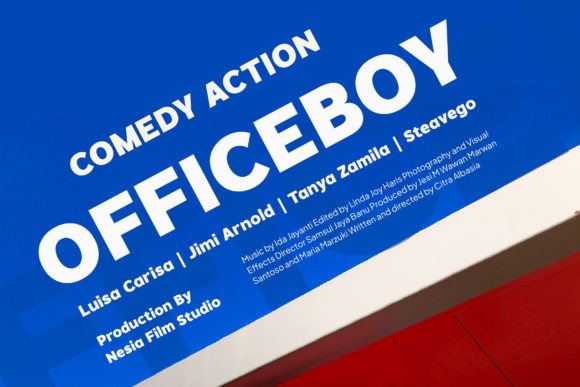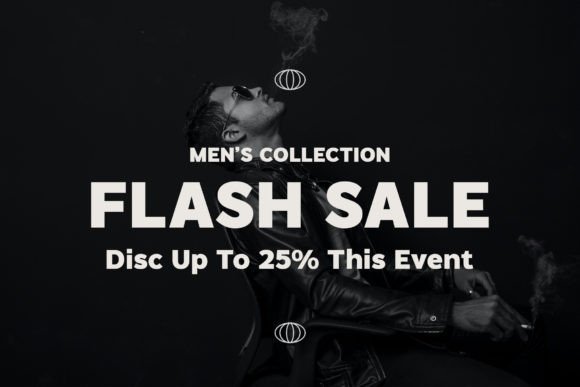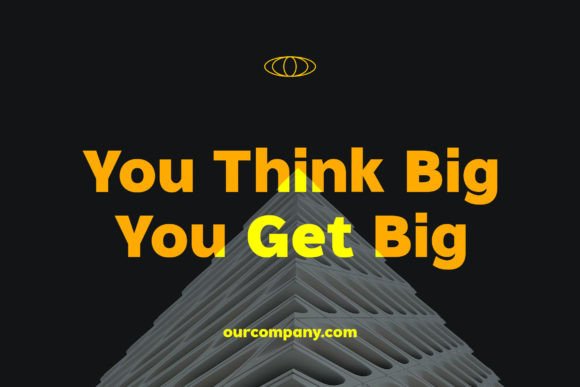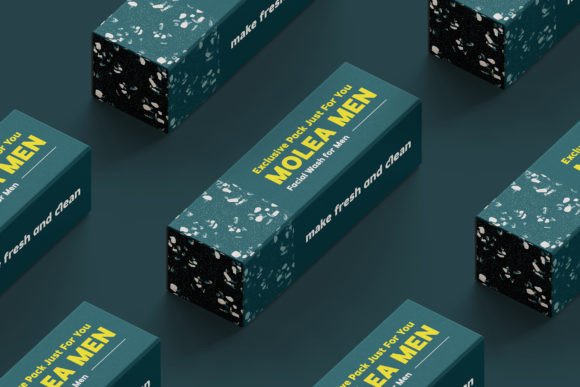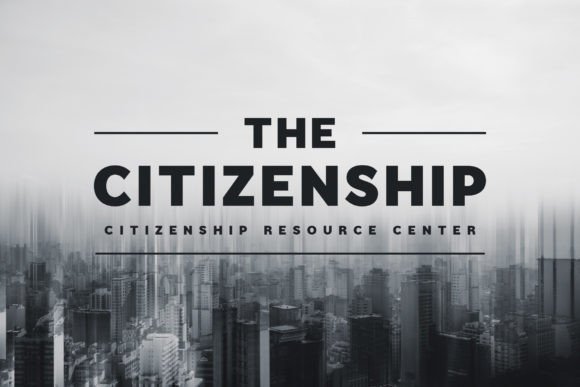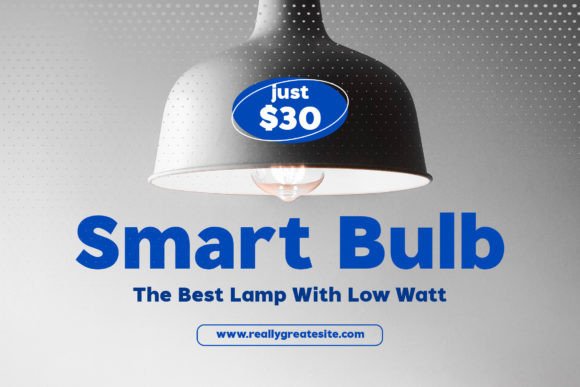
Introducing Carientz Font: The Modern Bold Sans Serif for Creative Projects
In the world of design, typography plays a crucial role in conveying messages, expressing creativity, and building brand identities. For designers and crafters looking for a modern and bold sans serif font, Carientz is an excellent choice. This versatile font is perfect for a wide range of projects, from logo branding and editorial design to sport design, game industry, and digital apps startup design.
What is Carientz Font?
Carientz is a modern bold sans serif font designed to make a statement. Its clean and geometric lines, combined with its bold weight, make it perfect for headlines, titles, and logos. The font’s simplicity and elegance ensure that it can be used in various design contexts, from print to digital media.
Key Features of Carientz Font
- Modern and Bold Design: Carientz boasts a sleek and contemporary design that is sure to grab attention.
- Sans Serif: The font’s sans serif design ensures that it remains clean and uncluttered, making it perfect for digital media.
- Geometric Lines: The font’s geometric lines add a touch of sophistication and elegance.
- Versatile: Carientz can be used in a wide range of projects, from logo branding to editorial design.
Use Cases for Carientz Font
Carientz is an incredibly versatile font that can be used in various design projects, including:
- Logo Branding: Create a lasting impression with Carientz’s bold and modern design.
- Editorial Design: Use Carientz to create eye-catching headlines and titles for magazines, newspapers, and books.
- Stationery Design: Add a touch of elegance to your stationery with Carientz.
- Sport Design: Carientz’s bold design makes it perfect for sport-related projects, such as jerseys, posters, and flyers.
- Game Industry: Use Carientz to create bold and modern titles, logos, and UI elements for games.
- Techno/Gadget Brand: Carientz is an excellent choice for techno and gadget brands looking for a modern and sleek font.
- Music Poster: Create eye-catching music posters with Carientz’s bold and geometric design.
- Digital Apps Startup Design: Use Carientz to create a modern and bold design for your digital app or startup.
- Modern Advertising Design: Carientz is perfect for creating bold and eye-catching ads.
- Art Quote: Use Carientz to create stunning art quotes and typography.
- Home Decor: Add a touch of elegance to your home decor with Carientz.
- Book/Cover Title: Use Carientz to create bold and eye-catching book titles and covers.
- Special Events: Carientz is an excellent choice for designing materials for special events, such as weddings, conferences, and festivals.
Why Choose Carientz Font?
Carientz offers a unique combination of modernity, boldness, and versatility, making it an excellent choice for designers and crafters. Here are some reasons why you should choose Carientz:
- Unique Design: Carientz boasts a unique and modern design that sets it apart from other fonts.
- High-Quality: Carientz is a high-quality font designed to deliver excellent results in various design contexts.
Carientz is a modern bold sans serif font that is perfect for creative projects. Its versatility, elegance, and bold design make it an excellent choice for designers and crafters. Whether you’re working on a logo branding project, editorial design, or digital app startup design, Carientz is sure to deliver excellent results. So why wait? Download Carientz today and take your design to the next level!